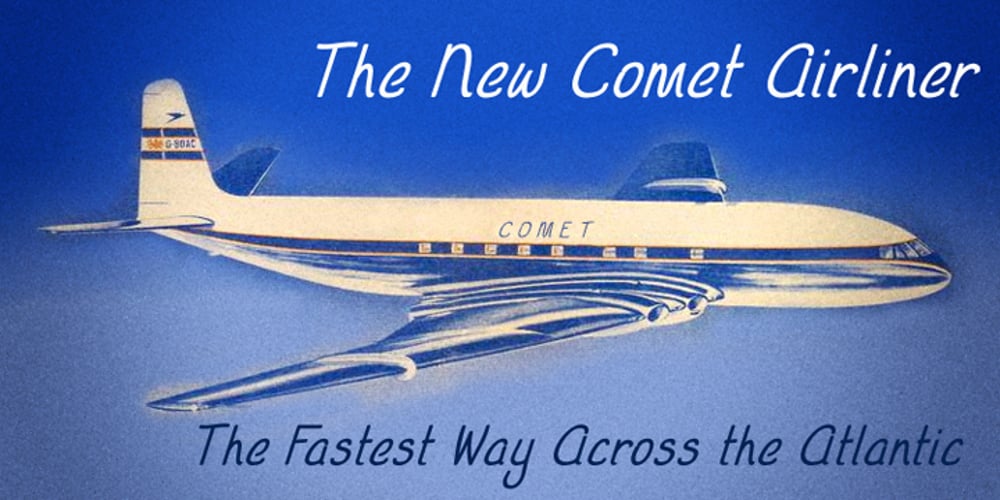
Sophie J Font Family was designed by Paul James Lloyd and published by Greater Albion Typefounders. Sophie J contains 2 styles and family package options. We were marveling one day at a colleague’s handwriting. We noticed that it managed all at once to be casual and modern looking, yet admirably regular and legible as well. We took a few specimens of their writing as the inspiration for ‘Sophie J’, a family of two typefaces offered in regular and bold weights. Sophie J is ideal for posters, fun party invitations and anything else where a feeling of friendliness and warmth is required.